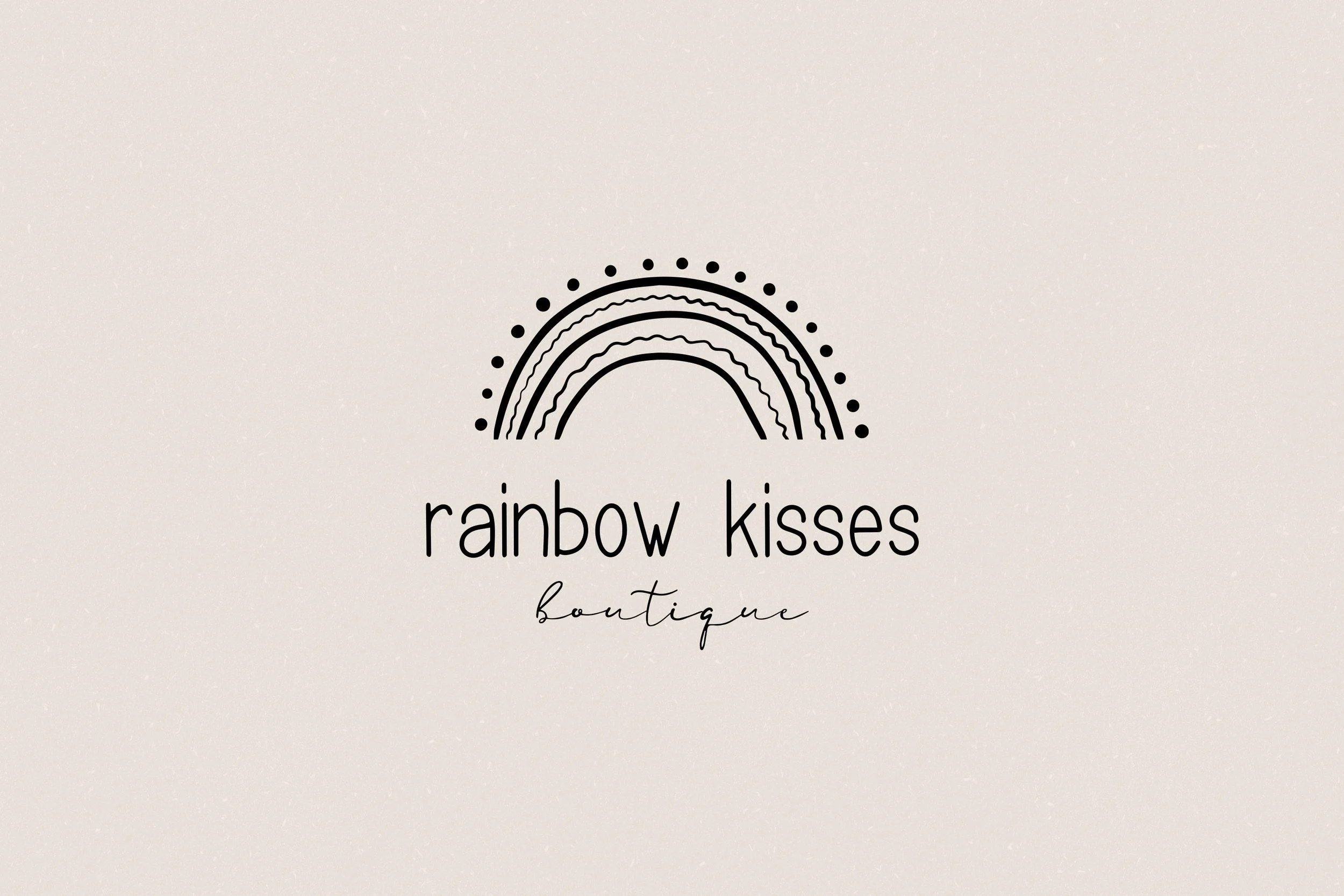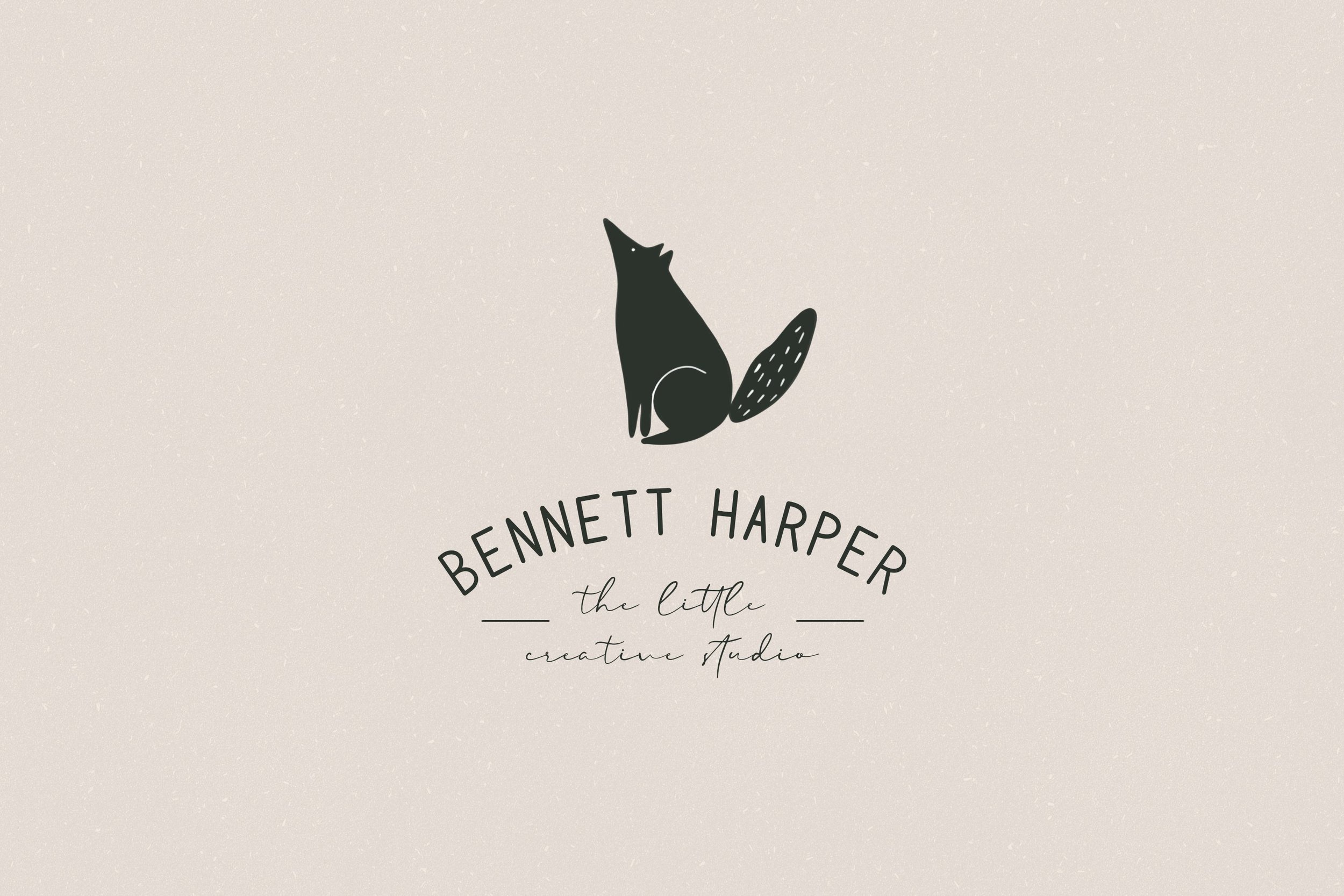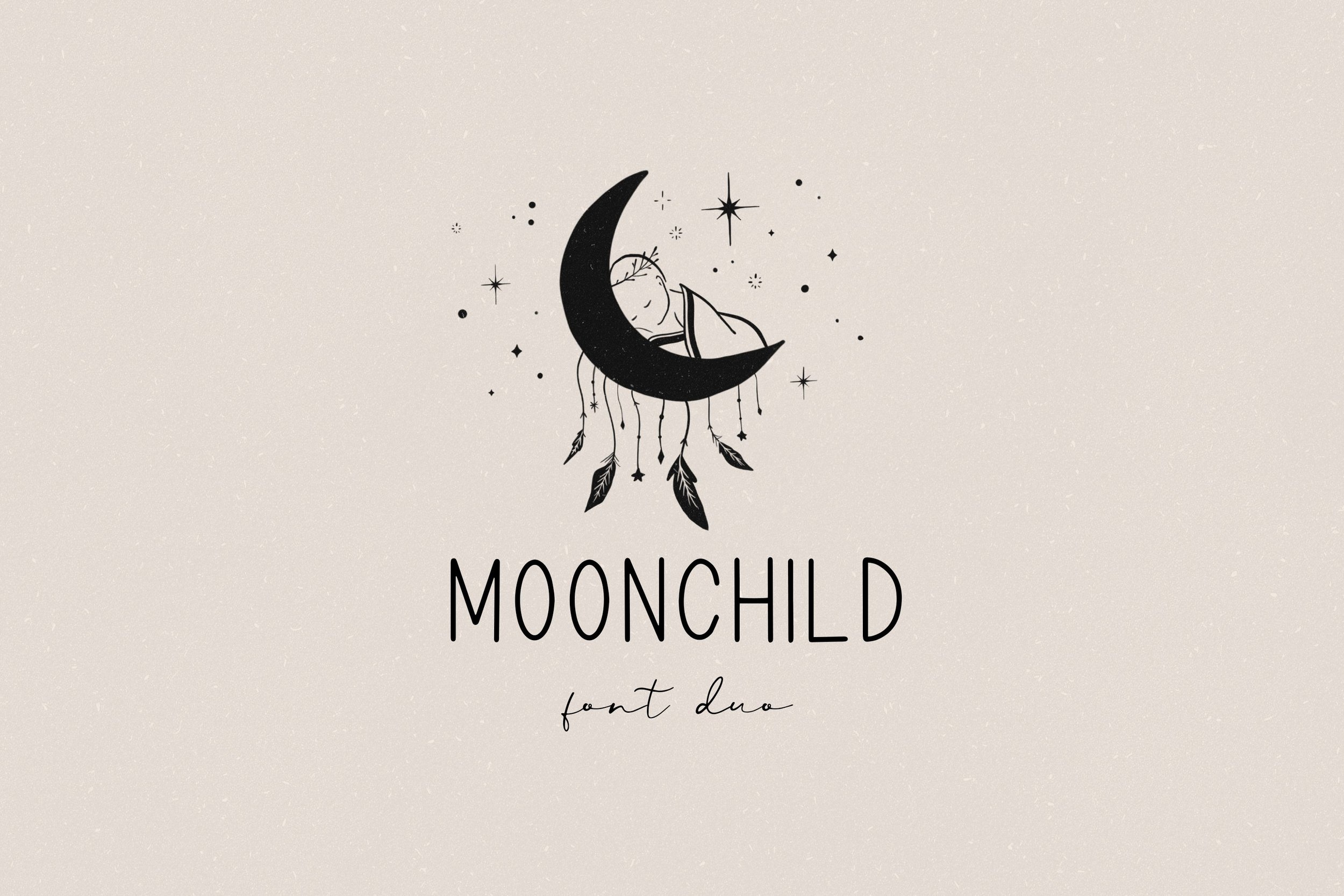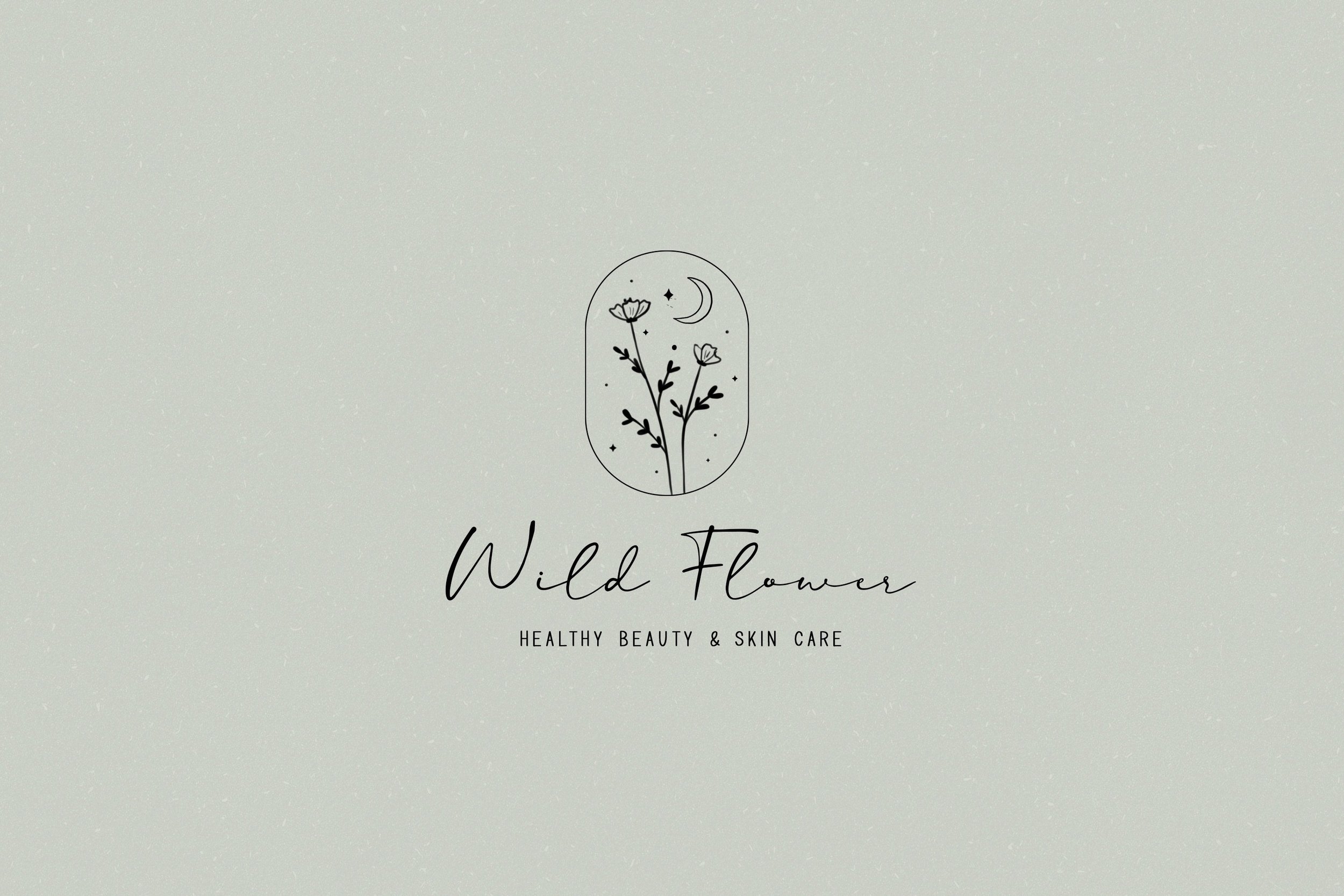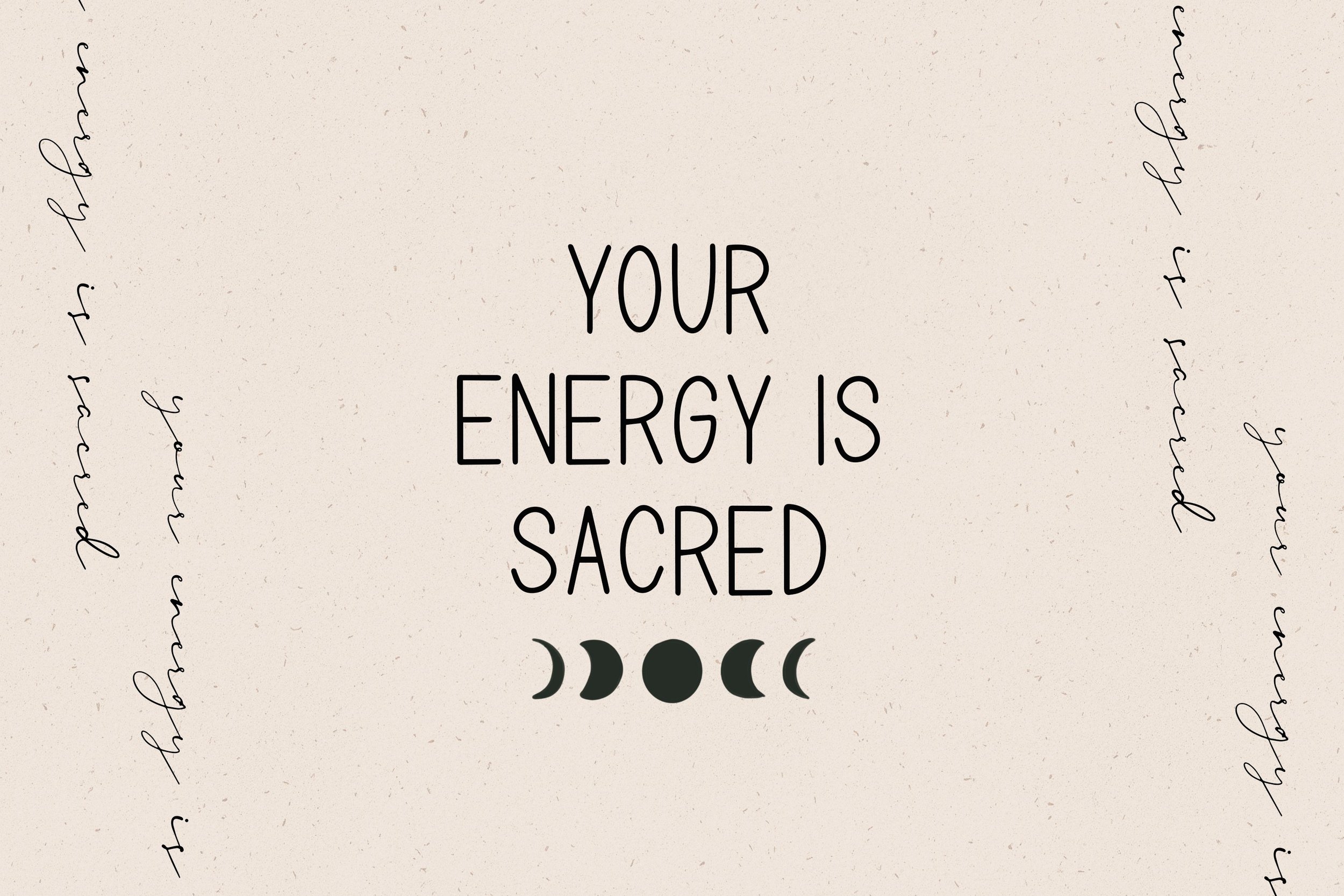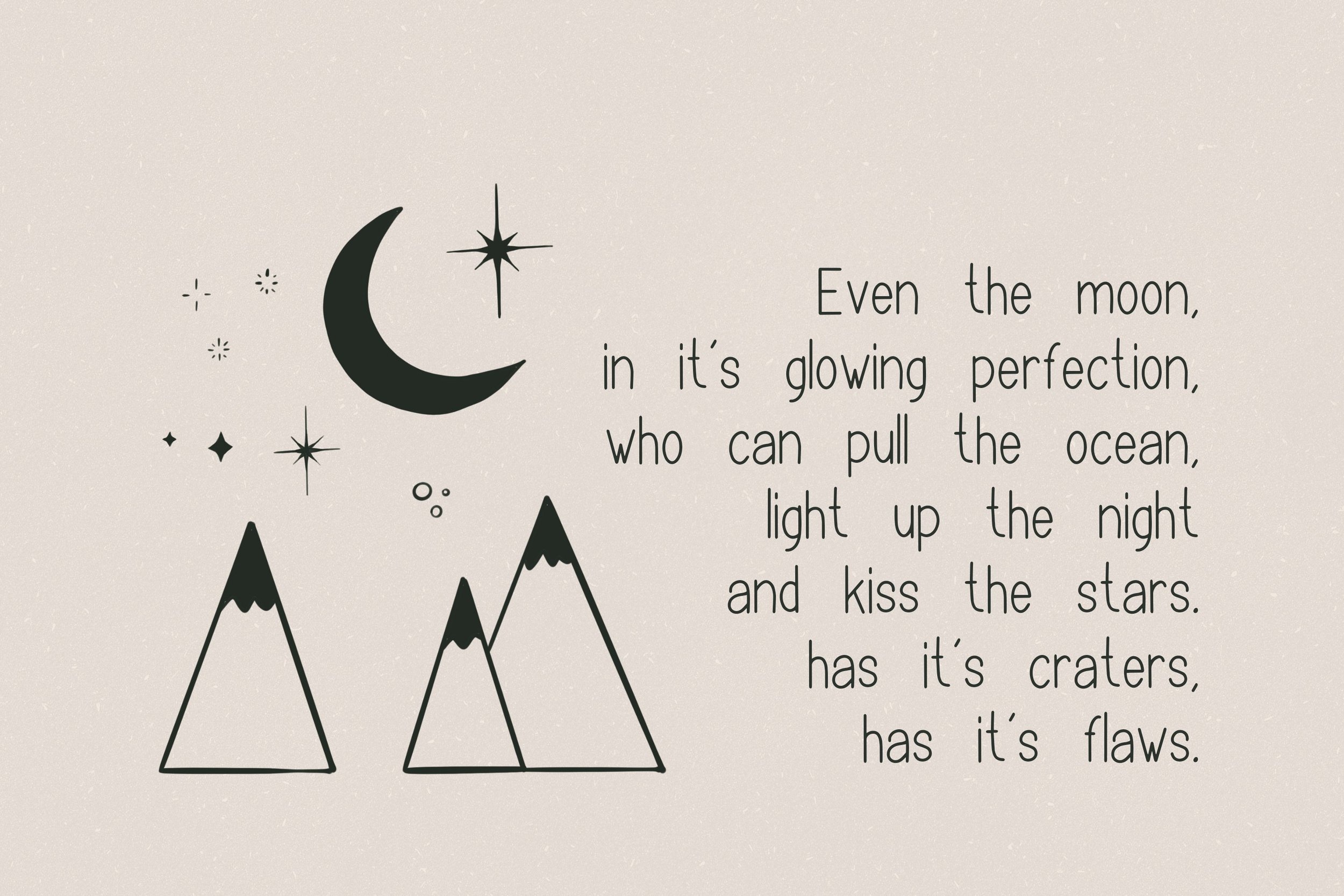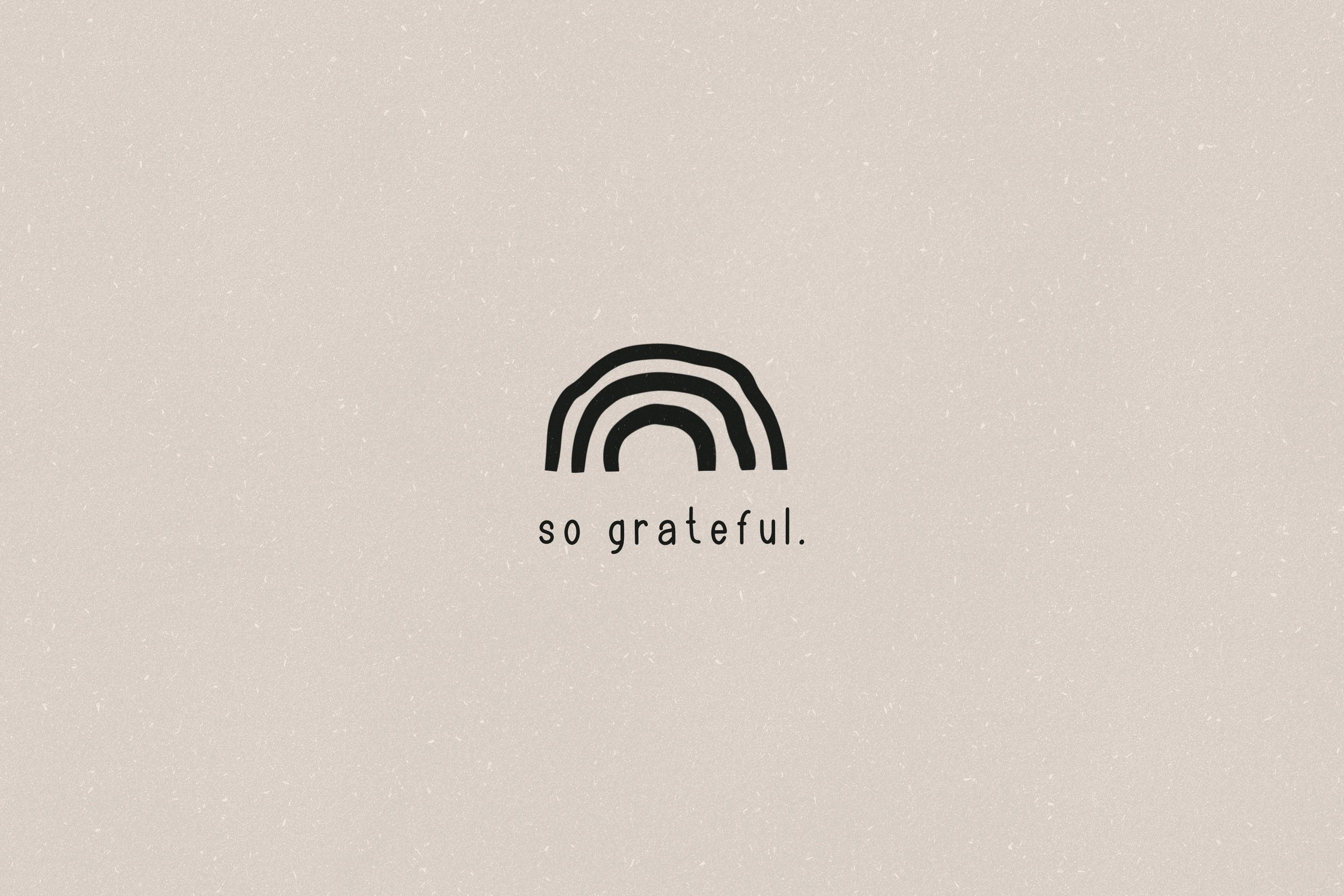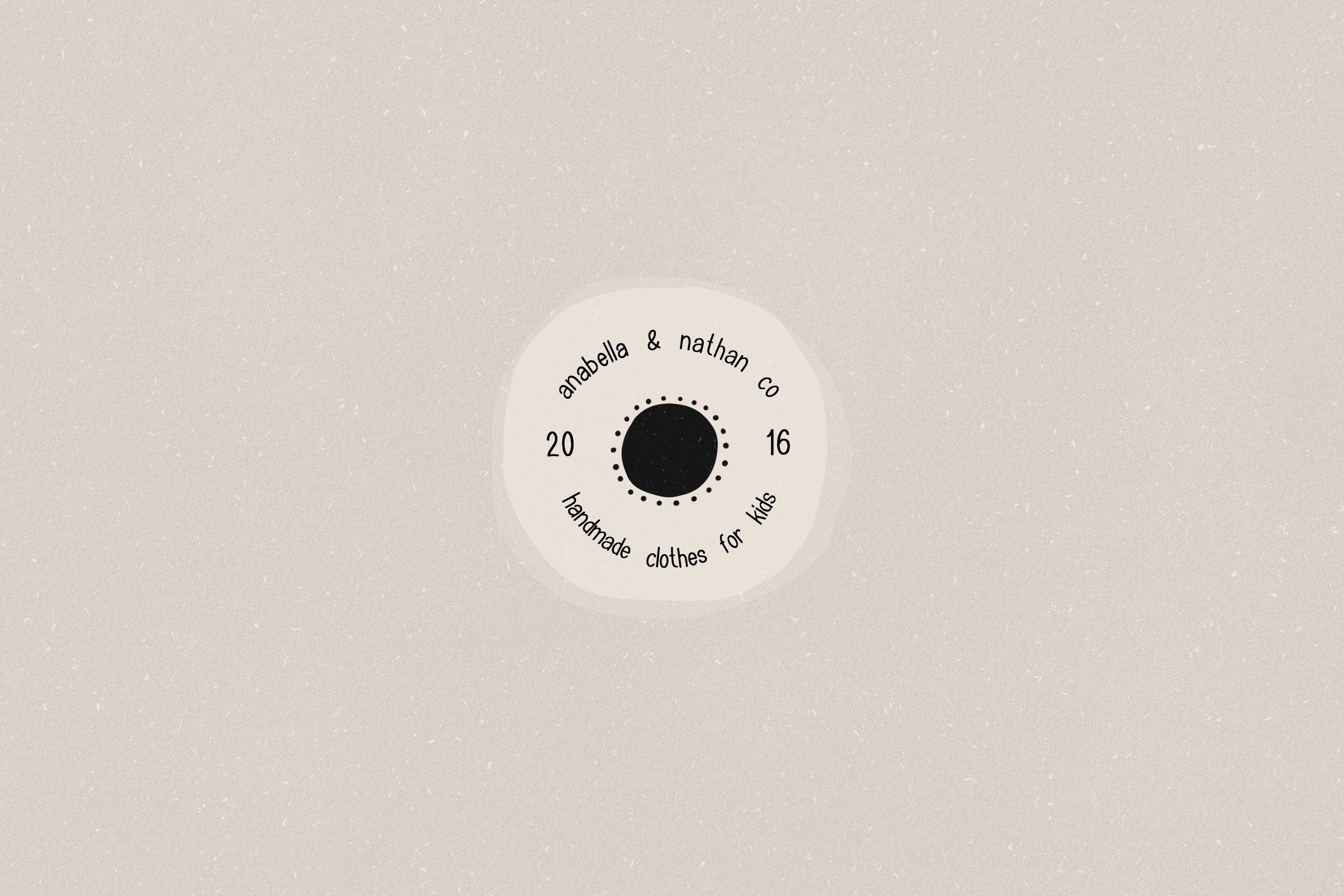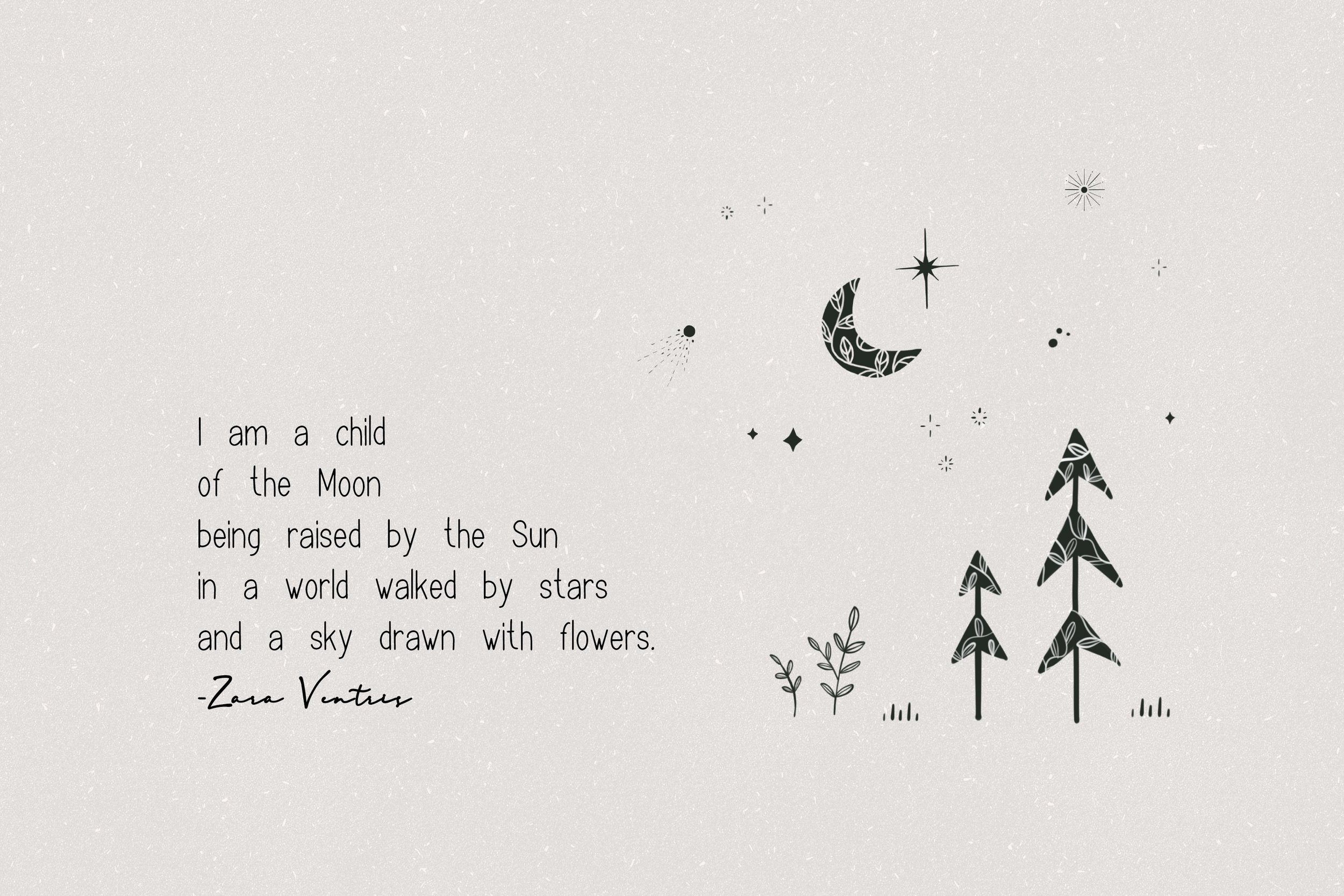
Introducing Moonchild, your go-to font duo that unites an affable sans serif with a dreamy script. Designed for warmth and whimsy, this collection of fonts and illustrations invites creators to design their very own fairy tales. Whether it's for branding or event stationery, Moonchild adds a touch of enchantment to any project.
- Contains: Uppercase and lowercase letters, numerals, punctuation marks
- Features: Multilingual support